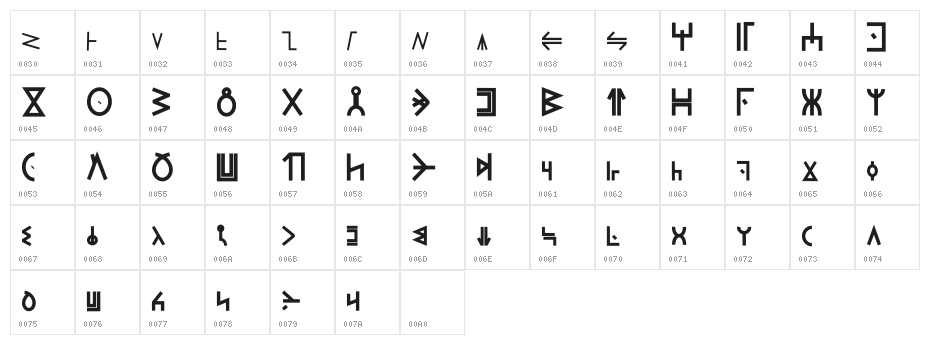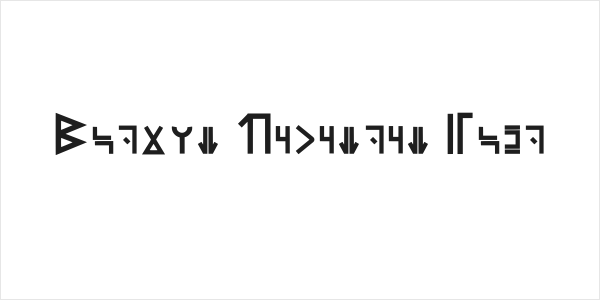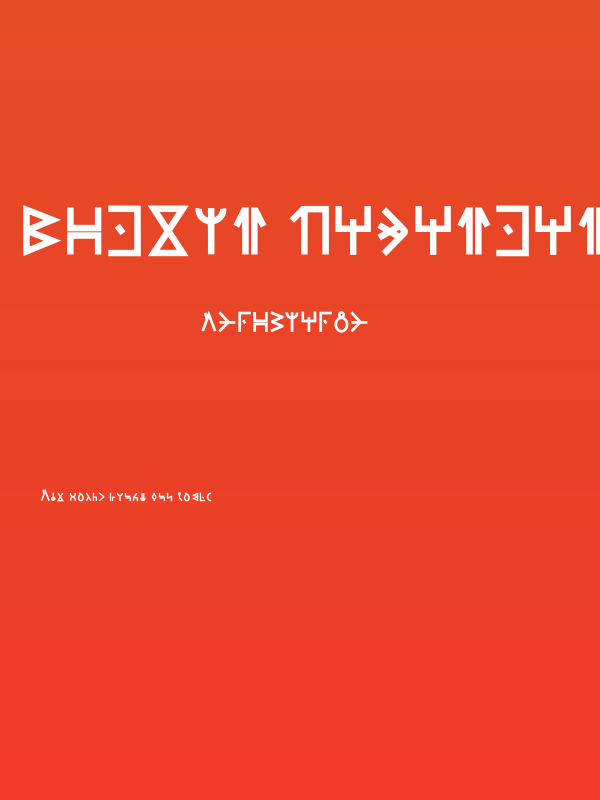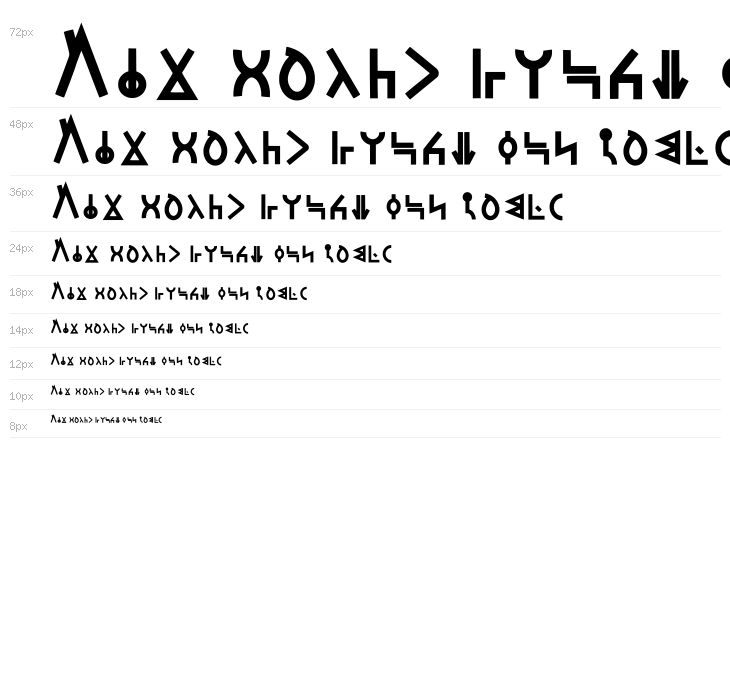
Modern Wakandan Bold Font
Modern Wakandan Bold Description
This font features a unique and futuristic design, drawing inspiration from fictional scripts and modern aesthetics. The characters are bold and geometric, with sharp angles and distinct shapes that create a sense of mystery and advanced technology. Each letterform is crafted with precision, offering a visually striking appearance that stands out in any context. The font's style is reminiscent of ancient symbols combined with a modern twist, making it ideal for projects that require a touch of the extraordinary. Its boldness and distinctiveness make it suitable for creative and innovative designs.
Overall StyleFuturistic, Decorative
Proposed ProjectsIdeal for sci-fi themed projects, video game interfaces, movie posters, and branding for tech companies.